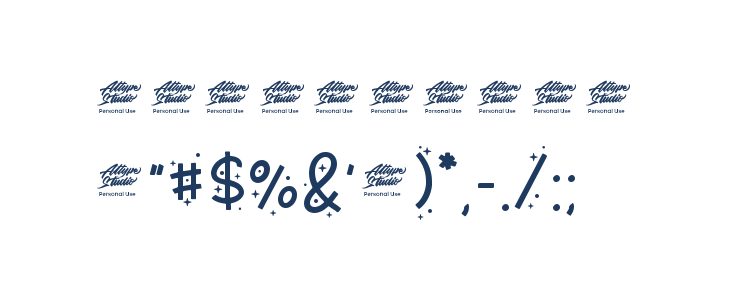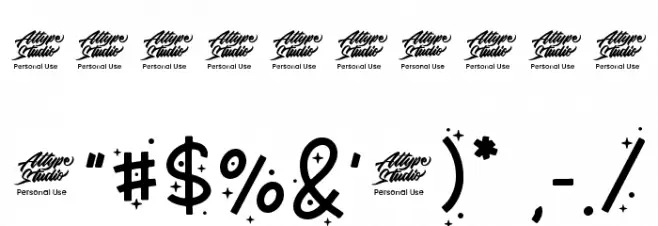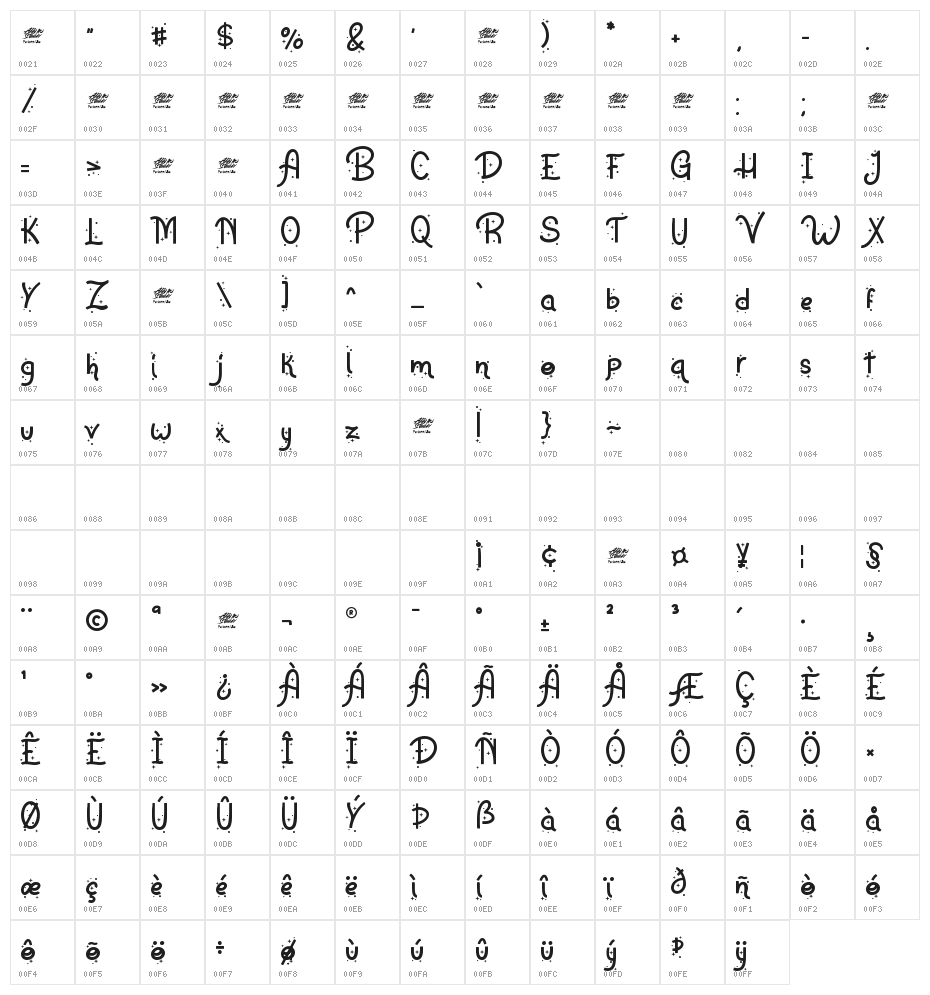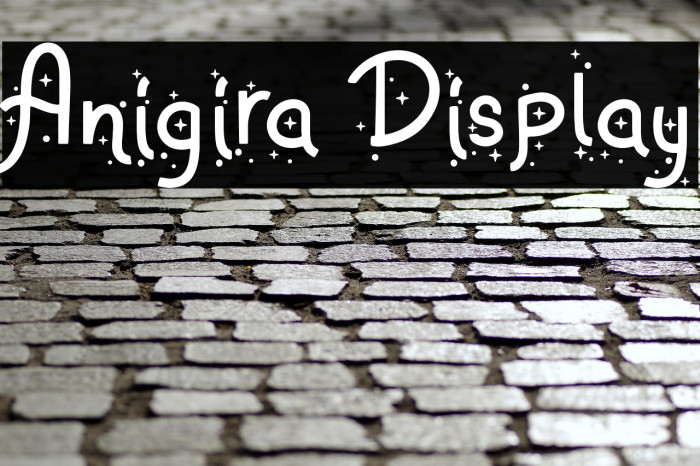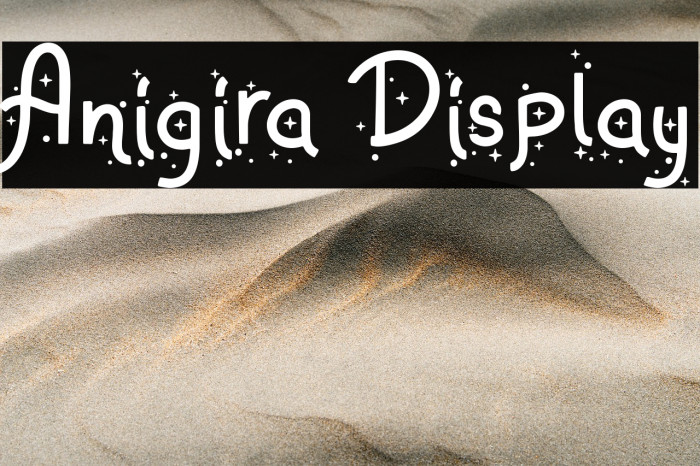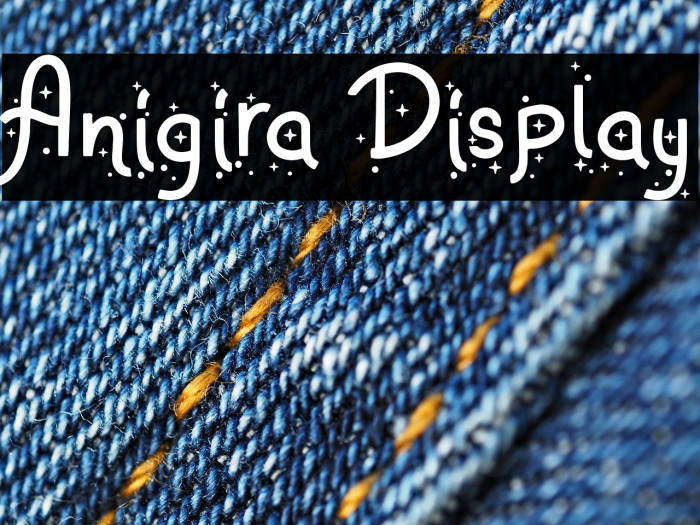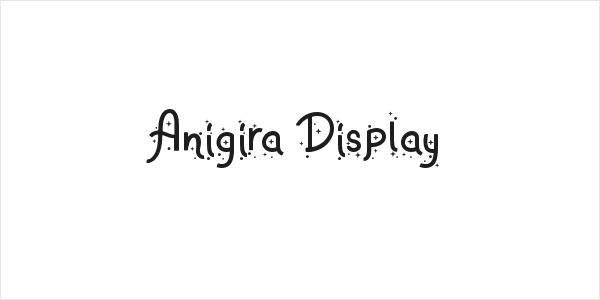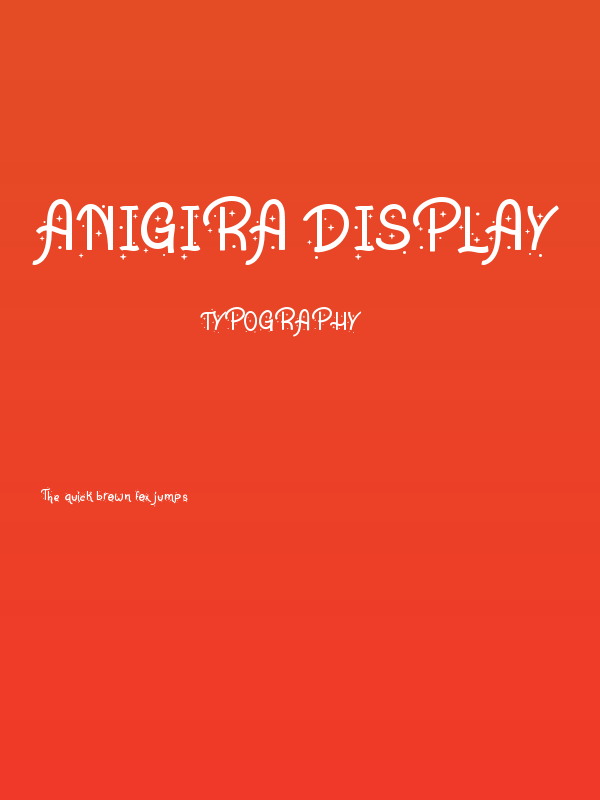
Anigira Display Font
Anigira Display Description
This font features a playful and whimsical design, characterized by its decorative elements and star-like embellishments scattered throughout the characters. The letters have a rounded, flowing form that adds a sense of movement and energy. The uppercase and lowercase letters maintain a consistent style, with the uppercase being slightly more pronounced. The numbers and special characters follow the same decorative theme, making the font cohesive and visually appealing. This font is ideal for projects that require a fun and engaging aesthetic.
| Proposed Projects | Ideal for children's books, party invitations, playful branding, and creative posters. |